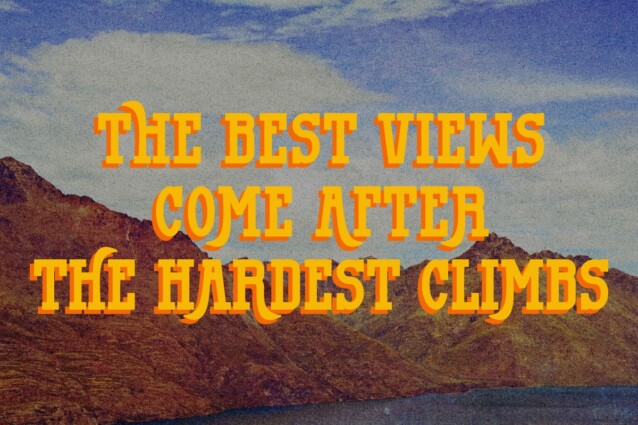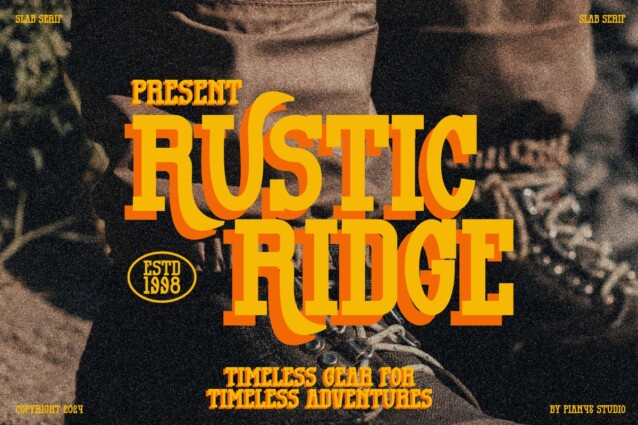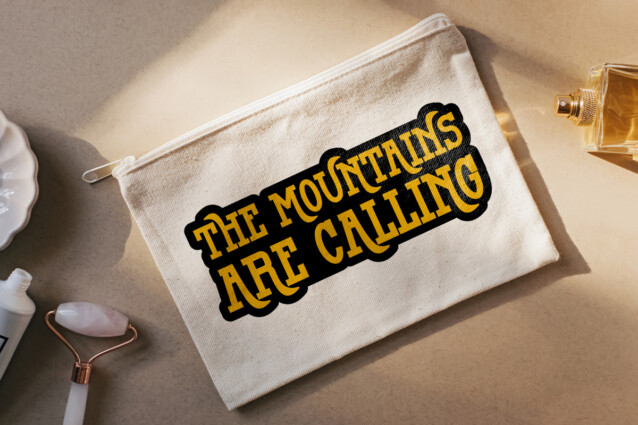
Summit Chores Font is a retro and classic slab serif font, inspired by the blend of mountain vector designs and the festive spirit of Christmas. Perfect for crafting adventure-themed quotes, posters, movie titles and logo branding. It’s also ideal for apparel mockups like t-shirts, mugs, tumblers and tote bags.